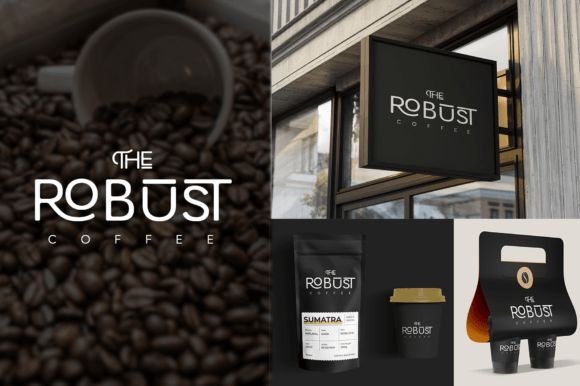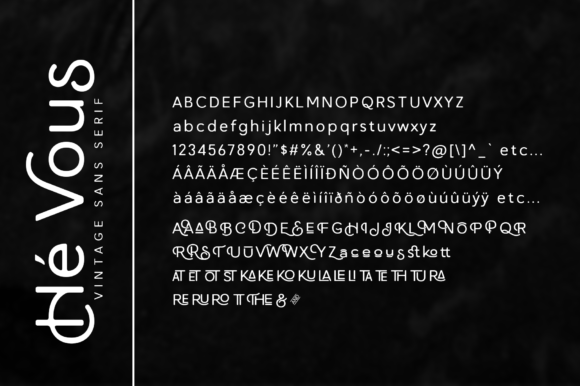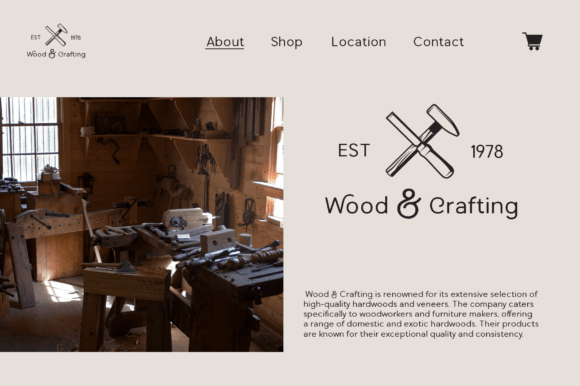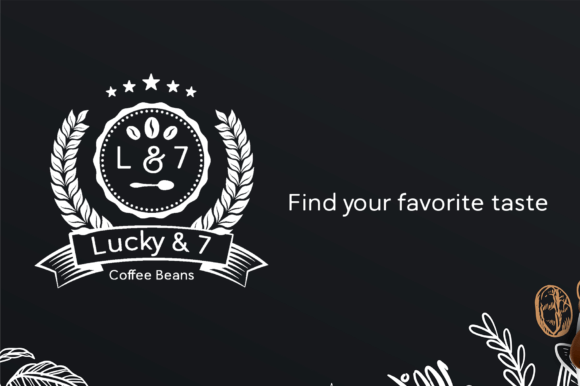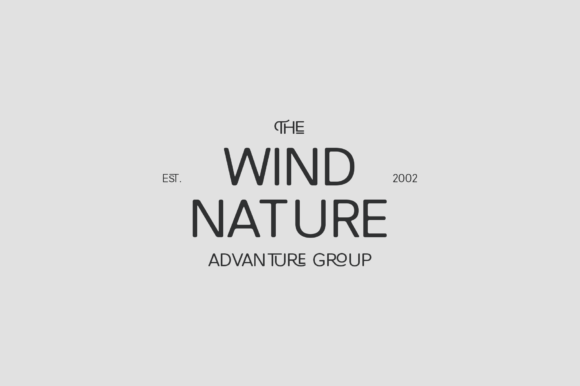
The Perfect Blend of Vintage and Modern: Uncovering the Magic of Hé Vous Font
As a designer, have you ever found yourself stuck in a creative rut, searching for the perfect font to elevate your project? You’re not alone. Sometimes, it’s the smallest details that can make all the difference. For me, that moment came when I stumbled upon the enchanting Hé Vous Font. This distinctive vintage sans serif font has a way of transporting you to a bygone era, while still feeling refreshingly modern.
Designed by the talented Mytype Studio, Hé Vous Font is a masterful blend of retro and contemporary styles. Its unique character shapes, such as the elongated “H” and stylized “é,” add a touch of personality to your text. But what truly sets Hé Vous apart is its versatility – perfect for both headlines and body text, making it a valuable addition to any designer’s toolkit.
Hé Vous Font Review
Overall, I think Hé Vous Font is a great resource for designers looking for high-quality fonts, but like any tool, it’s not without its limitations.
Hé Vous Font Practical Application Guide
What is Hé Vous Font?
Hé Vous Font is a font library that offers a wide range of fonts for various designs and projects. It’s an ideal choice for designers, marketers, and small businesses looking for professional-looking fonts without breaking the bank.
Getting the Most Out of Hé Vous Font
Here are some tips to get the most out of Hé Vous Font:
1. Experiment with different fonts to find the perfect match for your design.
2. Use Hé Vous Font in combination with other design elements to create a unique look.
Hé Vous Font is ideal for:
1. Creating professional-looking documents and presentations.
2. Designing marketing materials such as brochures and